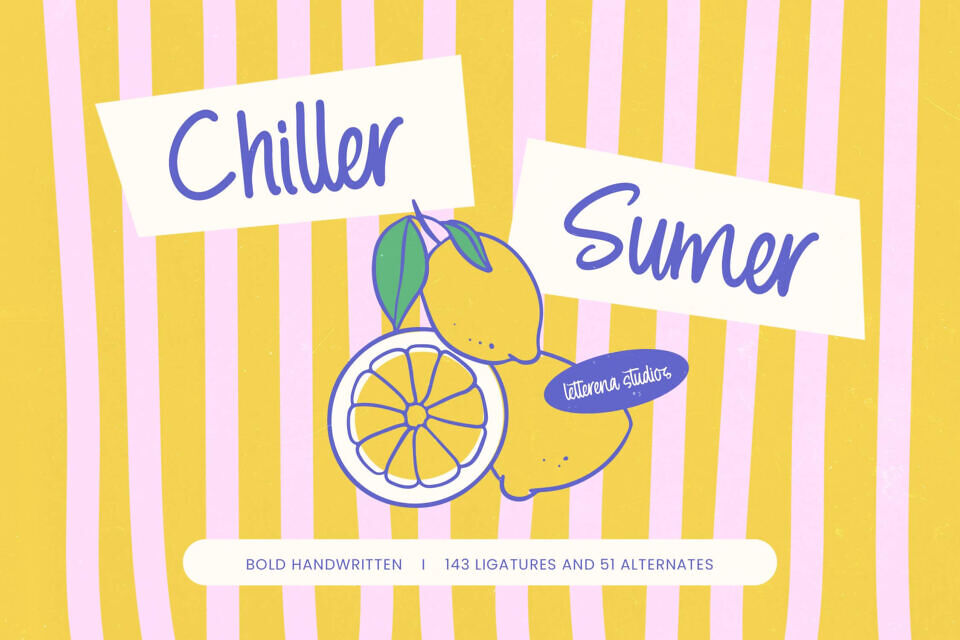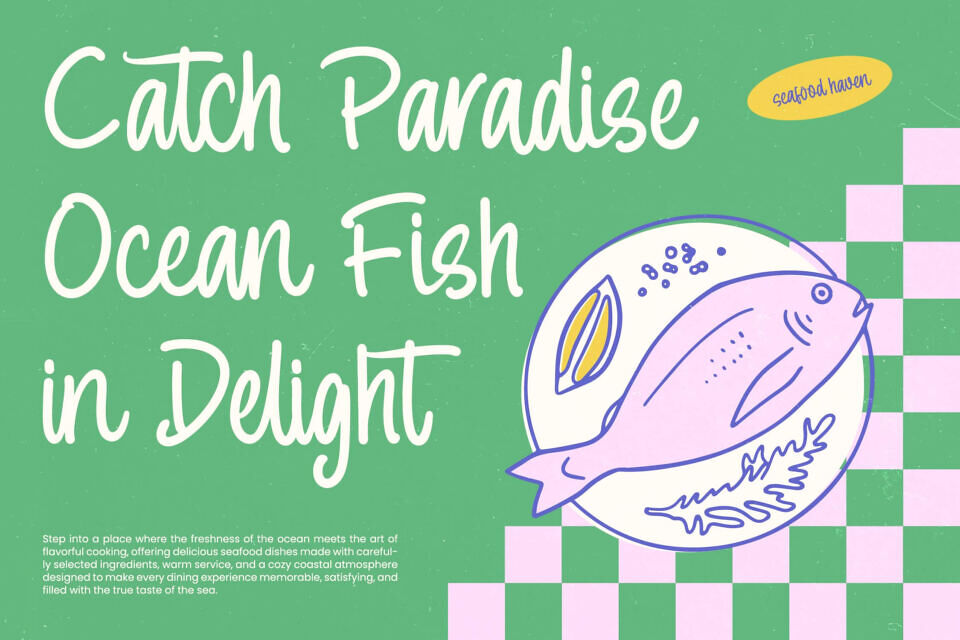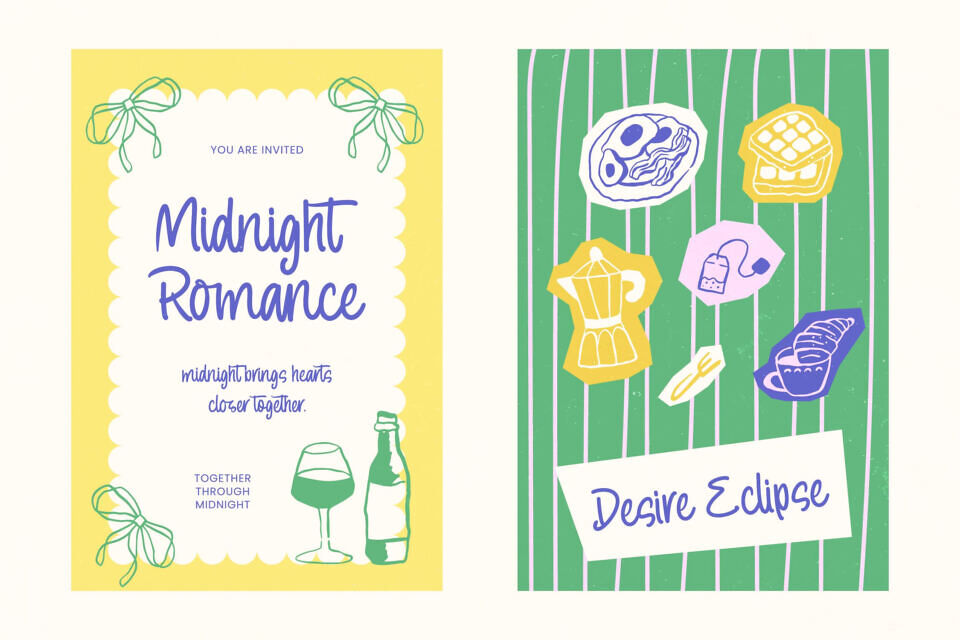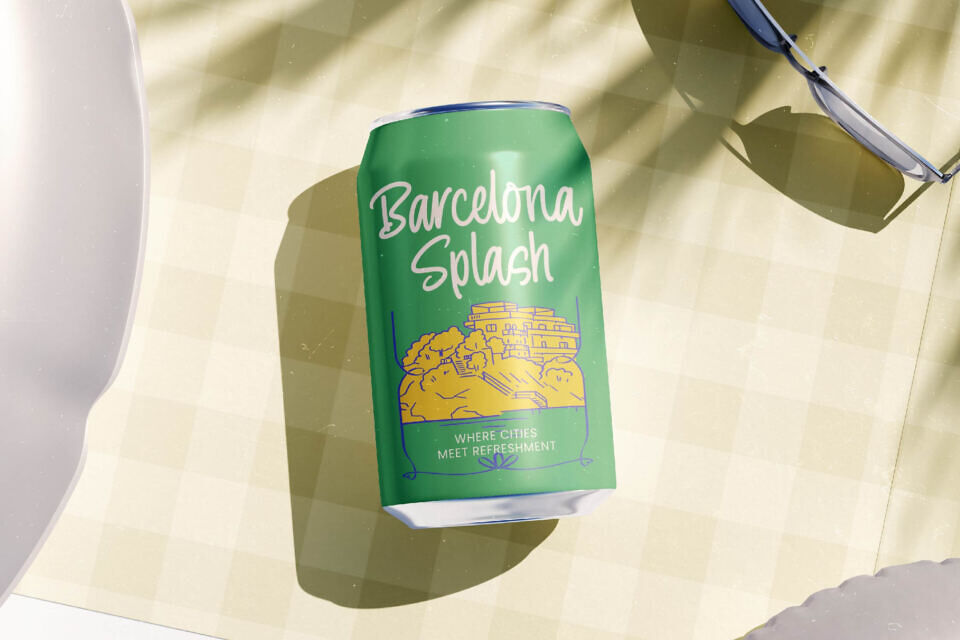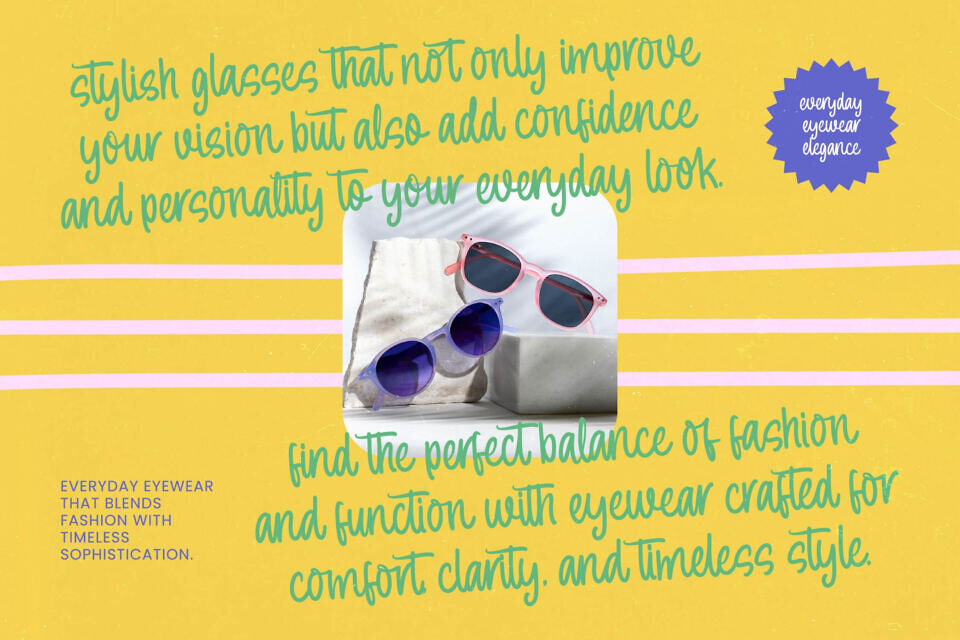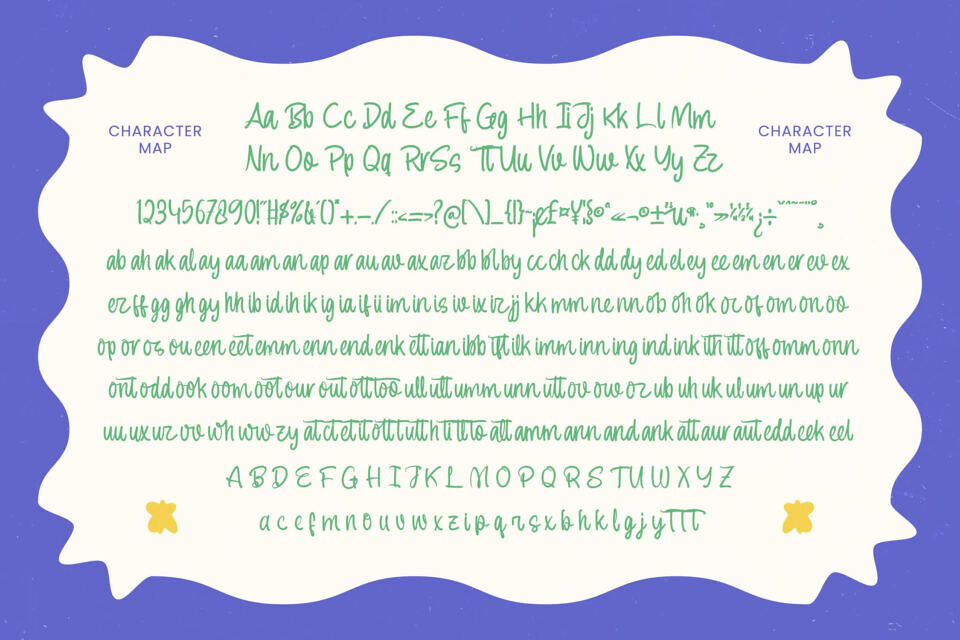
Chiller Sumer Font
Add a personal touch to your brand with a unique, handcrafted font. Chiller Sumer offers a playful, organic look with professional clarity, making it perfect for creating an authentic brand voice.
With its dynamic letterforms and extensive features, including 143 ligatures and 51 alternates, this font provides endless customization options and supports multiple languages. It’s ideal for lifestyle branding, packaging, and editorial design, and helps brands stand out with its distinctive personality and high-contrast visibility.